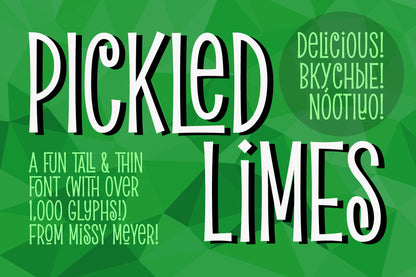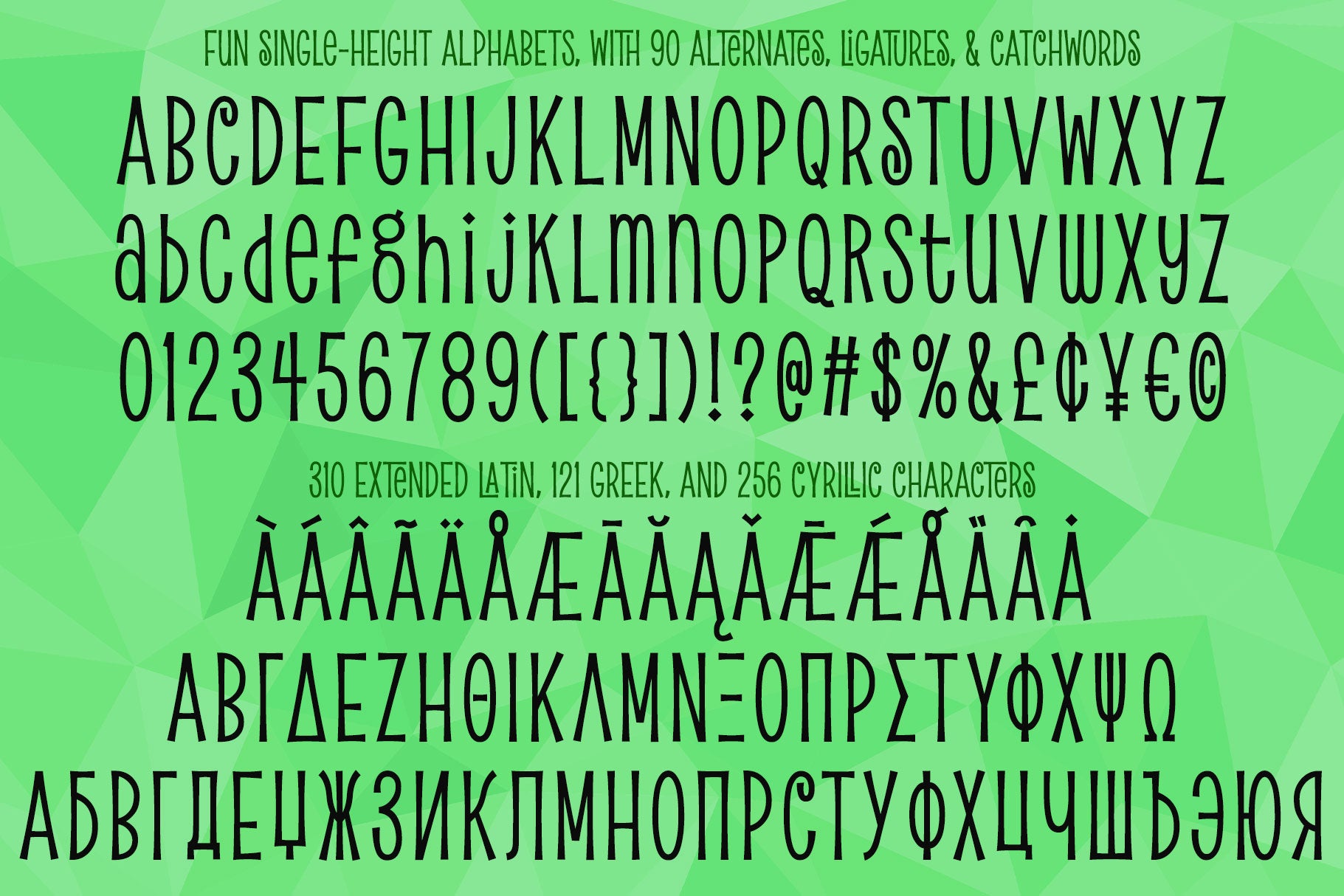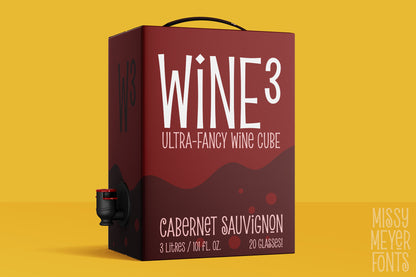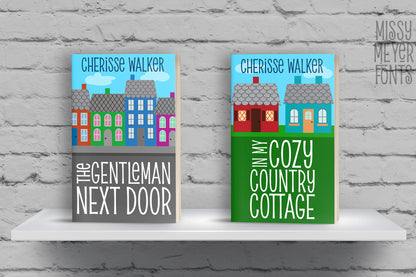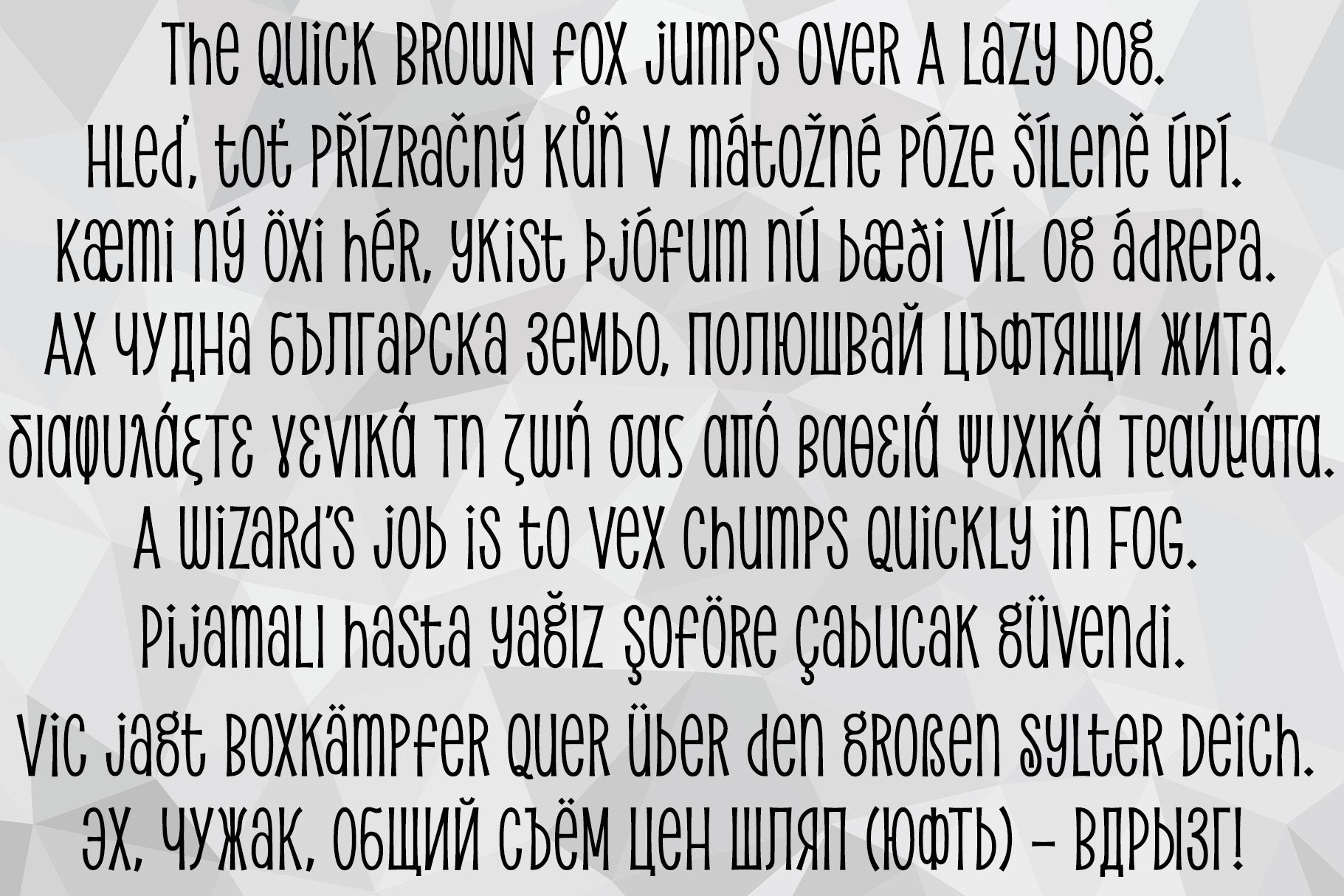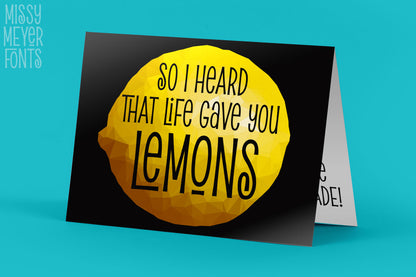
It all started with the uppercase S. I drew it, I liked it, I based a font around it! This is Pickled Limes, a tall and narrow single-case font. It's built clean in vector format from the ground up, for ultra-sharp lines and corners, as well as super-smooth curves.
The slight rounding, flared ends, and quirky character mix make this font a ton of fun to use on its own, but it will also pair well with tons of hand-written styles!
I've branched out on this one; in addition to over 300 Extended Latin characters, I've also included Unicode's 256 Cyrillic and 121 Greek characters for even more language support. Add in the 90+ alternates, ligatures, and catchwords, and Pickled Limes clocks in at just over 1000 characters.